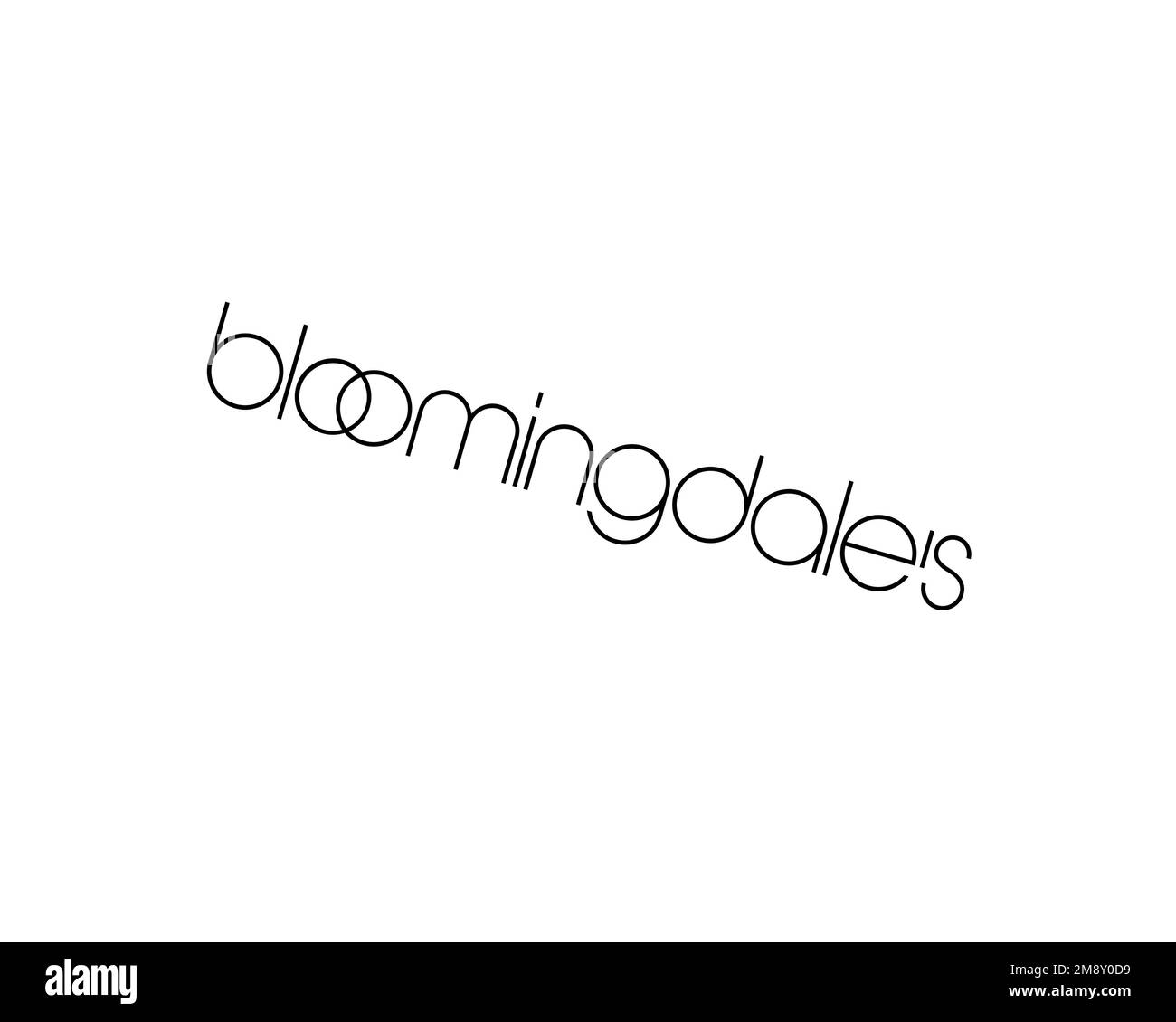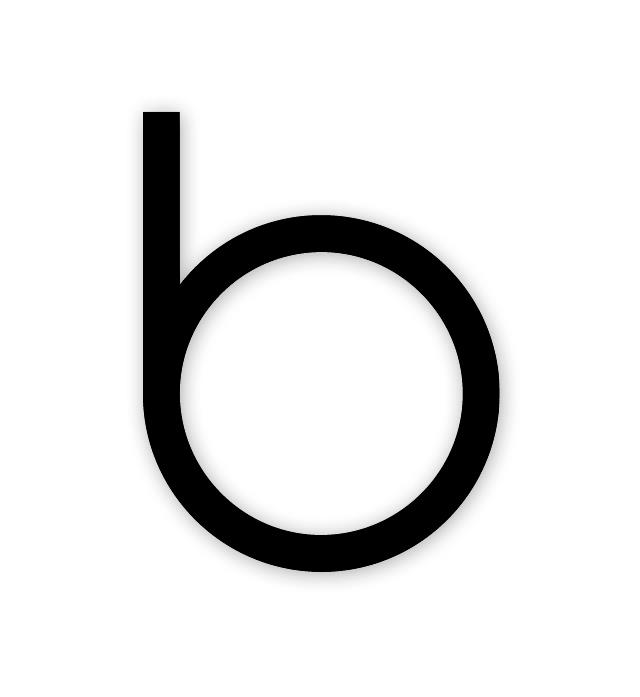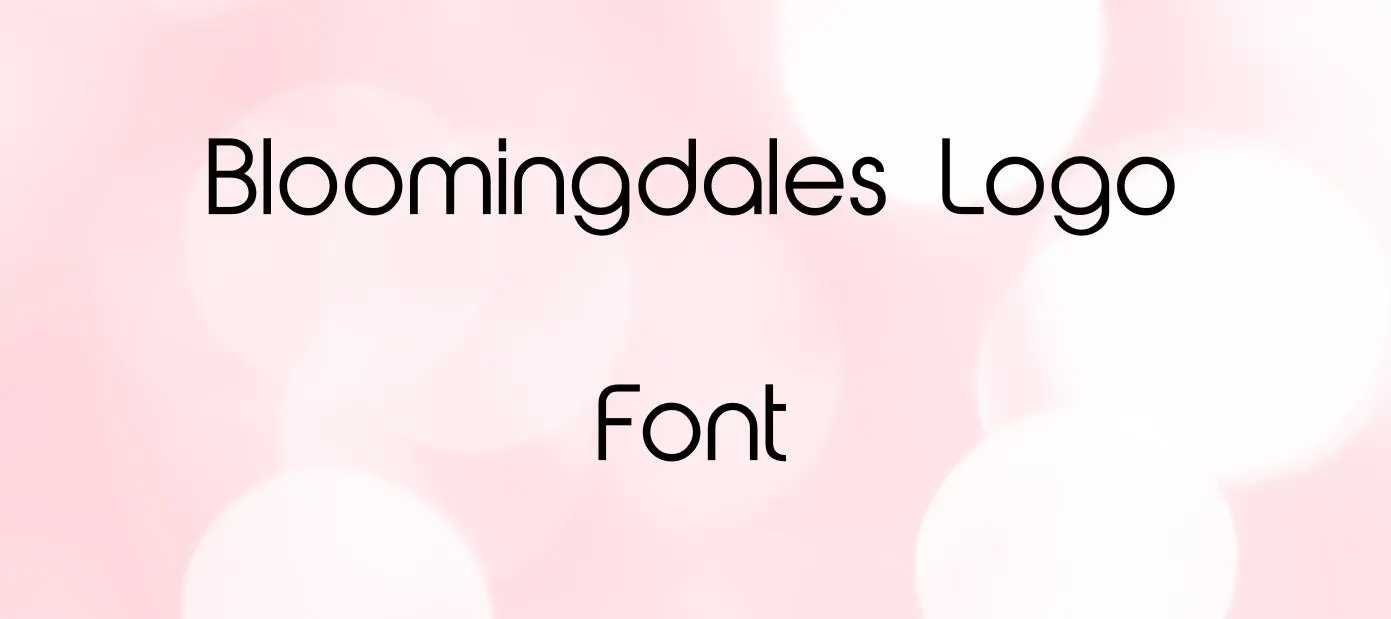
Bloomingdales Logo Font . Browse by alphabetical listing, by style, by author or by popularity. bloomingdales logo font. The bloomingdales is an american luxury department store chain with a total of 55 stores in america. This brand was founded by joseph b. currently, we’re excited to present to you an exceptional and stylish typeface called the bloomingdales logo. It does not meet the threshold of originality. Browse by alphabetical listing, by style, by author or by popularity. introducing bloomingdales logo font! archive of freely downloadable fonts. this logo image consists only of simple geometric shapes or text. archive of freely downloadable fonts. the font used for bloomingdale’s logo is very similar to avant garde gothic extra light, which is a geometric sans serif font.
This brand was founded by joseph b. introducing bloomingdales logo font! this logo image consists only of simple geometric shapes or text. currently, we’re excited to present to you an exceptional and stylish typeface called the bloomingdales logo. bloomingdales logo font. Browse by alphabetical listing, by style, by author or by popularity. archive of freely downloadable fonts. The bloomingdales is an american luxury department store chain with a total of 55 stores in america. the font used for bloomingdale’s logo is very similar to avant garde gothic extra light, which is a geometric sans serif font.
Bloomingdales Logo Font currently, we’re excited to present to you an exceptional and stylish typeface called the bloomingdales logo. archive of freely downloadable fonts. bloomingdales logo font. the font used for bloomingdale’s logo is very similar to avant garde gothic extra light, which is a geometric sans serif font. Browse by alphabetical listing, by style, by author or by popularity. The bloomingdales is an american luxury department store chain with a total of 55 stores in america. Browse by alphabetical listing, by style, by author or by popularity. introducing bloomingdales logo font! This brand was founded by joseph b. It does not meet the threshold of originality. currently, we’re excited to present to you an exceptional and stylish typeface called the bloomingdales logo. this logo image consists only of simple geometric shapes or text. archive of freely downloadable fonts.
Bloomingdale's Logo, symbol, meaning, history, PNG, brand Bloomingdales Logo Font the font used for bloomingdale’s logo is very similar to avant garde gothic extra light, which is a geometric sans serif font. introducing bloomingdales logo font! Browse by alphabetical listing, by style, by author or by popularity. It does not meet the threshold of originality. archive of freely downloadable fonts. bloomingdales logo font. Browse by alphabetical. Bloomingdales Logo Font.
Bloomingdales Logos Bloomingdales Logo Font this logo image consists only of simple geometric shapes or text. The bloomingdales is an american luxury department store chain with a total of 55 stores in america. archive of freely downloadable fonts. bloomingdales logo font. Browse by alphabetical listing, by style, by author or by popularity. currently, we’re excited. Bloomingdales Logo Font.
Bloomingdales Logo Font Free Download Bloomingdales Logo Font bloomingdales logo font. introducing bloomingdales logo font! archive of freely downloadable fonts. Browse by alphabetical listing, by style, by author or by popularity. The bloomingdales is an american luxury department store chain with a total of 55 stores in america. currently, we’re excited to present to you an exceptional and stylish typeface called the bloomingdales logo.. Bloomingdales Logo Font.
Bloomingdales Logo Font Free Download Bloomingdales Logo Font archive of freely downloadable fonts. bloomingdales logo font. archive of freely downloadable fonts. this logo image consists only of simple geometric shapes or text. the font used for bloomingdale’s logo is very similar to avant garde gothic extra light, which is a geometric sans serif font. introducing bloomingdales logo font! currently, we’re excited. Bloomingdales Logo Font.
Bloomingdale’s (1972) Packaging, signage, logo, font design for the New Bloomingdales Logo Font Browse by alphabetical listing, by style, by author or by popularity. currently, we’re excited to present to you an exceptional and stylish typeface called the bloomingdales logo. The bloomingdales is an american luxury department store chain with a total of 55 stores in america. This brand was founded by joseph b. introducing bloomingdales logo font! the font. Bloomingdales Logo Font.
Bloomingdale's branding on Behance Bloomingdales Logo Font It does not meet the threshold of originality. The bloomingdales is an american luxury department store chain with a total of 55 stores in america. Browse by alphabetical listing, by style, by author or by popularity. the font used for bloomingdale’s logo is very similar to avant garde gothic extra light, which is a geometric sans serif font. . Bloomingdales Logo Font.
bloomingdales logo png 20 free Cliparts Download images on Clipground Bloomingdales Logo Font currently, we’re excited to present to you an exceptional and stylish typeface called the bloomingdales logo. the font used for bloomingdale’s logo is very similar to avant garde gothic extra light, which is a geometric sans serif font. archive of freely downloadable fonts. It does not meet the threshold of originality. Browse by alphabetical listing, by style,. Bloomingdales Logo Font.
Bloomingdale's branding on Behance Bloomingdales Logo Font This brand was founded by joseph b. currently, we’re excited to present to you an exceptional and stylish typeface called the bloomingdales logo. this logo image consists only of simple geometric shapes or text. archive of freely downloadable fonts. The bloomingdales is an american luxury department store chain with a total of 55 stores in america. Browse. Bloomingdales Logo Font.
Bloomingdales Logo Font Free Download Bloomingdales Logo Font the font used for bloomingdale’s logo is very similar to avant garde gothic extra light, which is a geometric sans serif font. Browse by alphabetical listing, by style, by author or by popularity. bloomingdales logo font. currently, we’re excited to present to you an exceptional and stylish typeface called the bloomingdales logo. It does not meet the. Bloomingdales Logo Font.